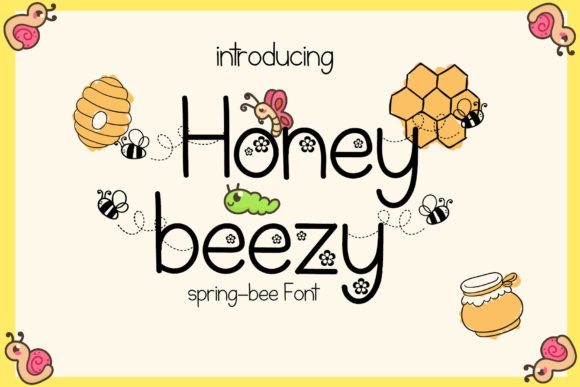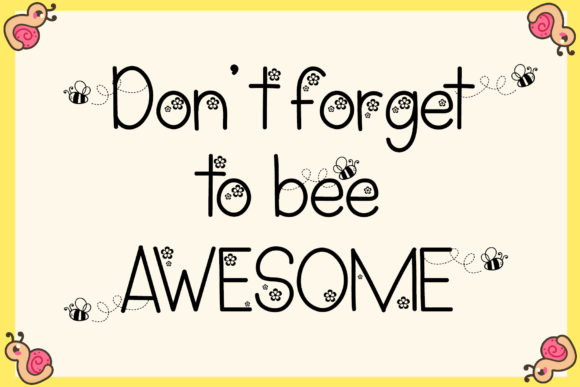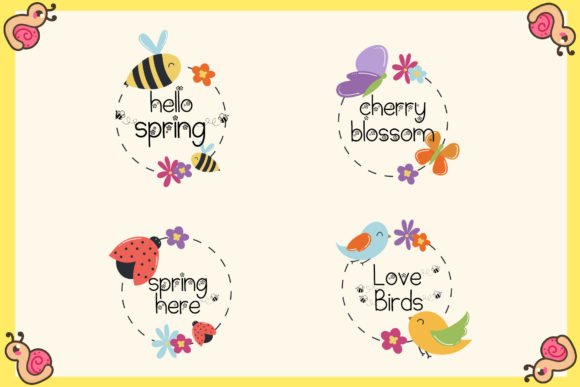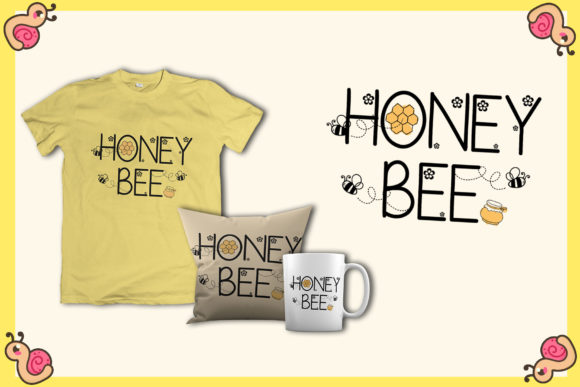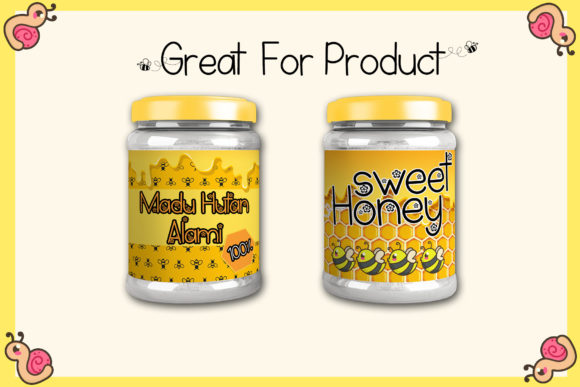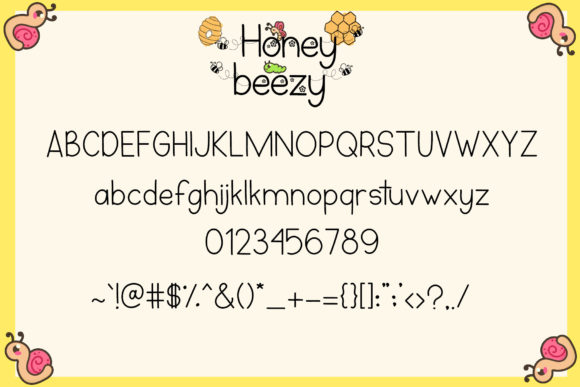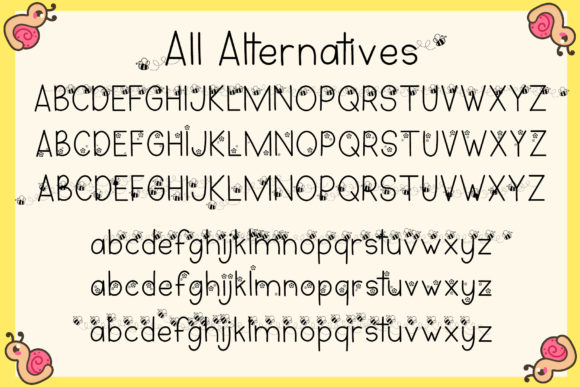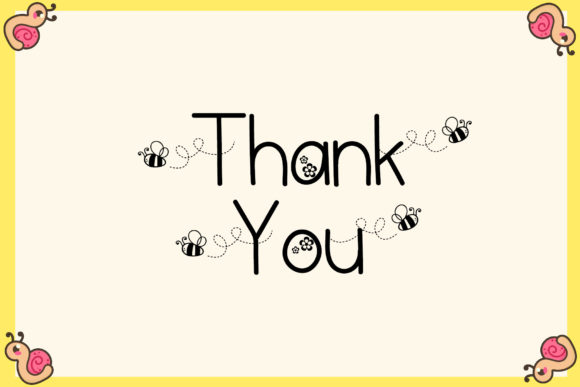
Honey Beezy Font
About Honey Beezy Font
The Honey Beezy is a cute spring-bee themed font. This childish font has some cute alternated glyphs to make your spring day more cheerful!
Looks great on cards, quotes, branding, t-shirt designs, kids stuff and much more!